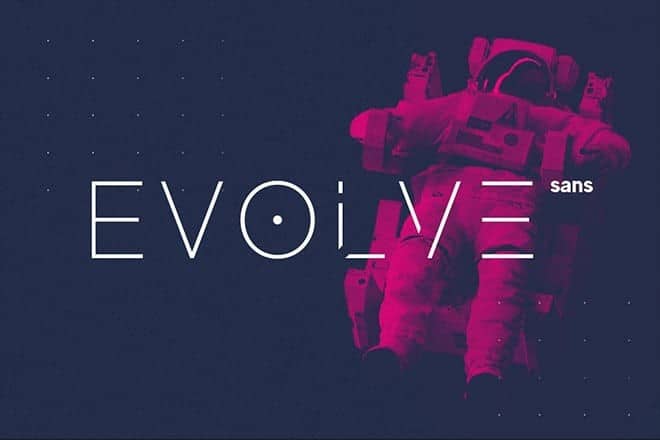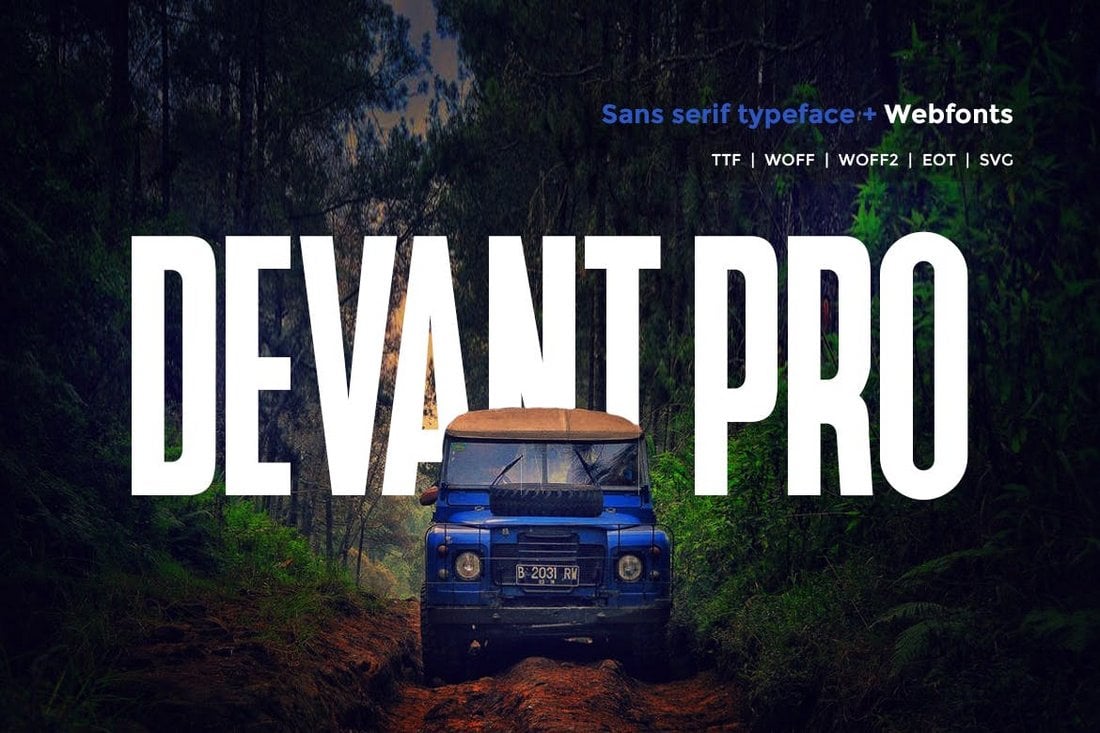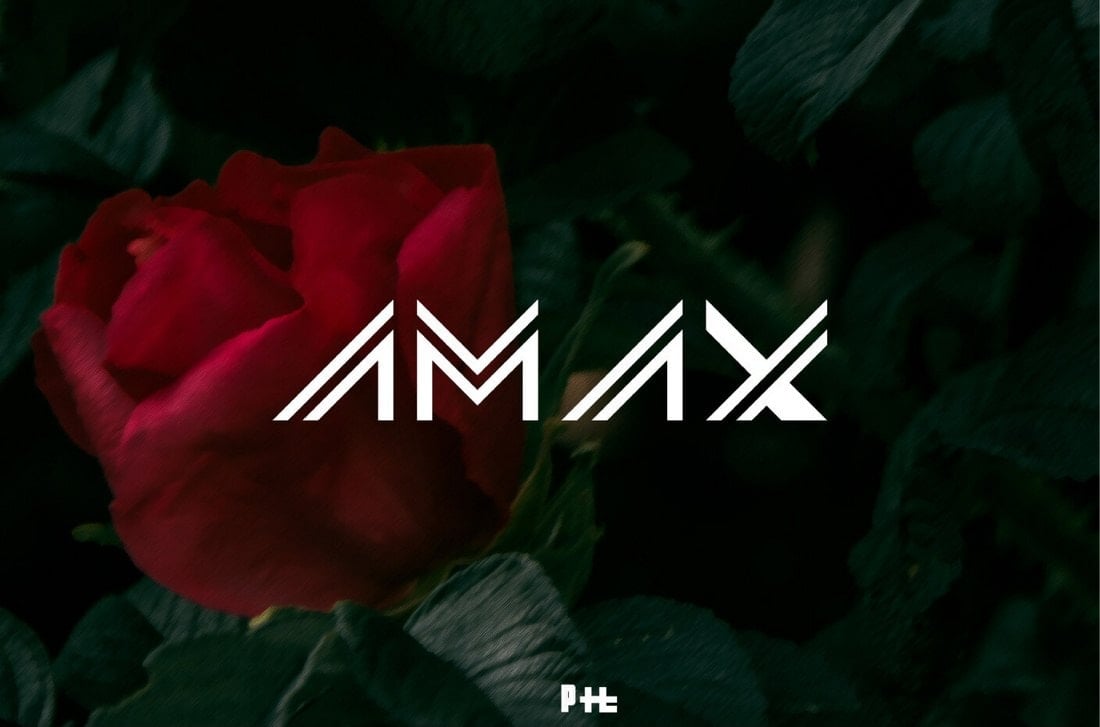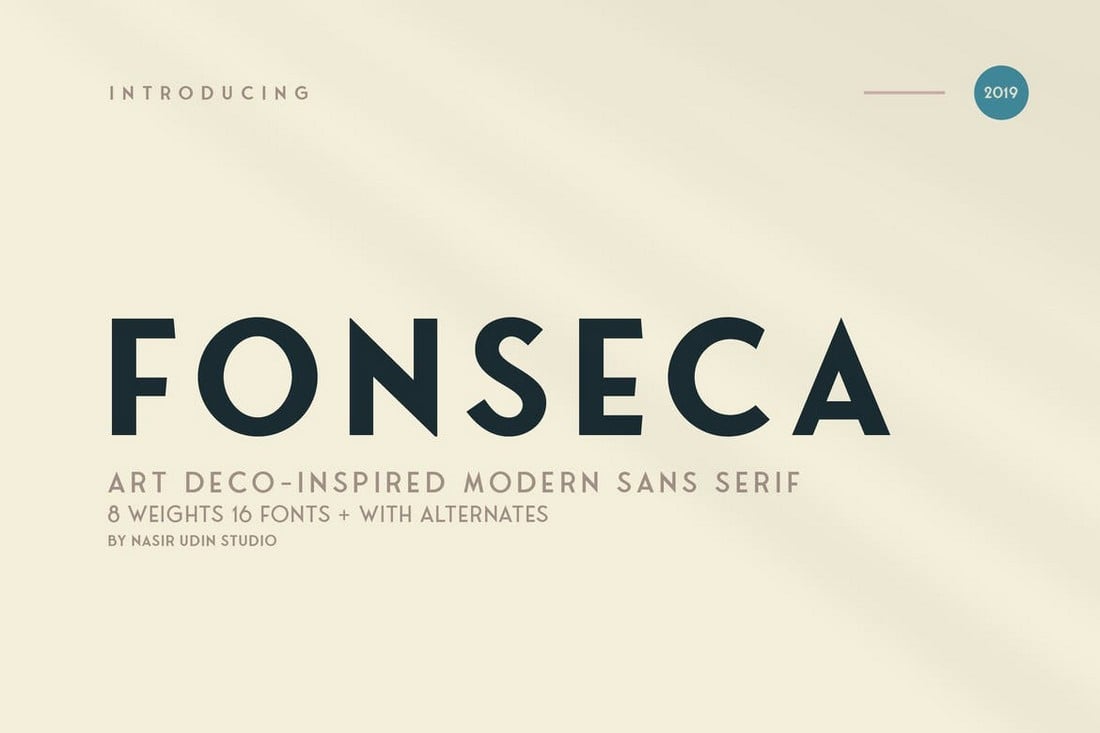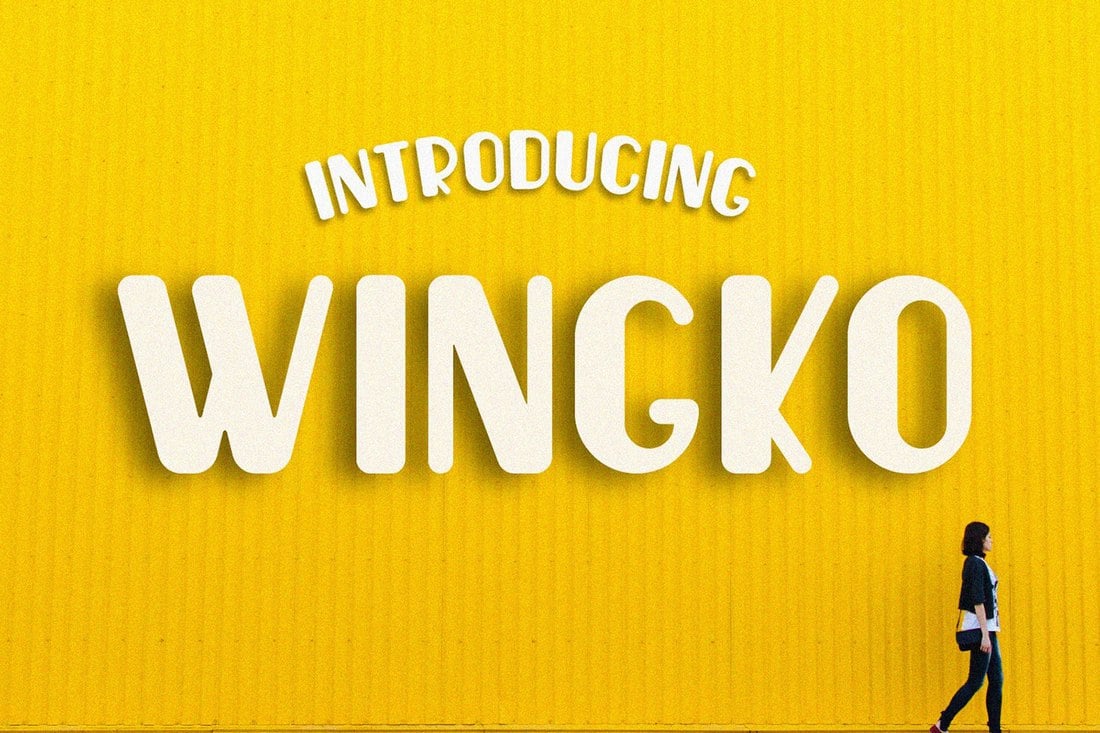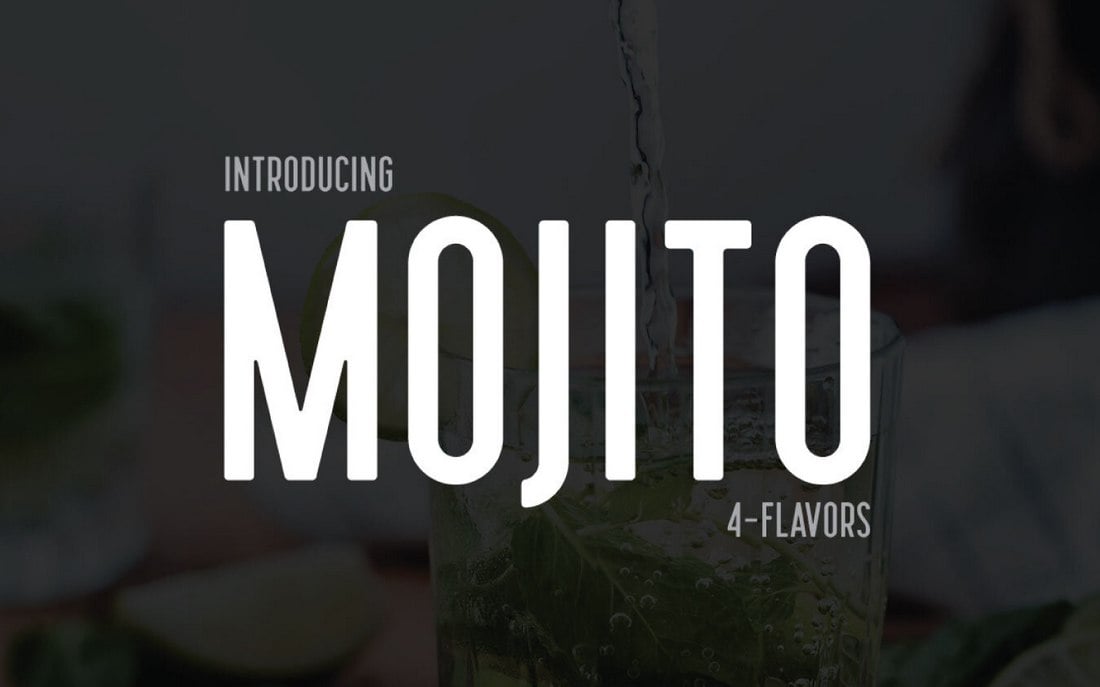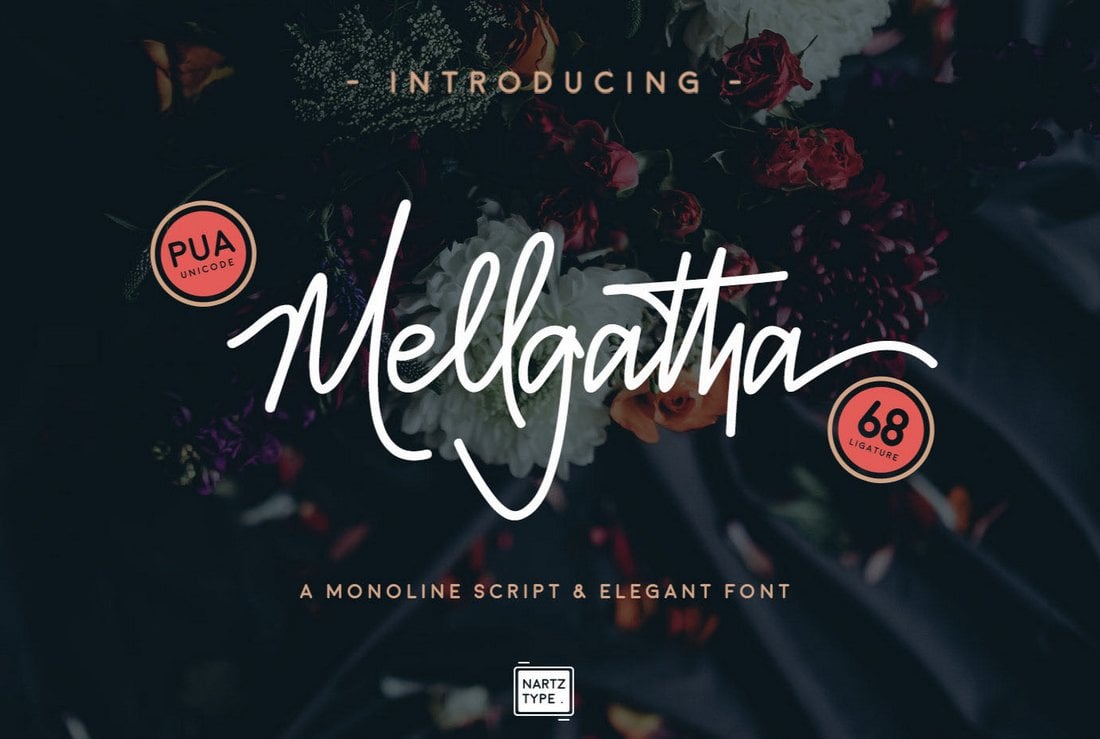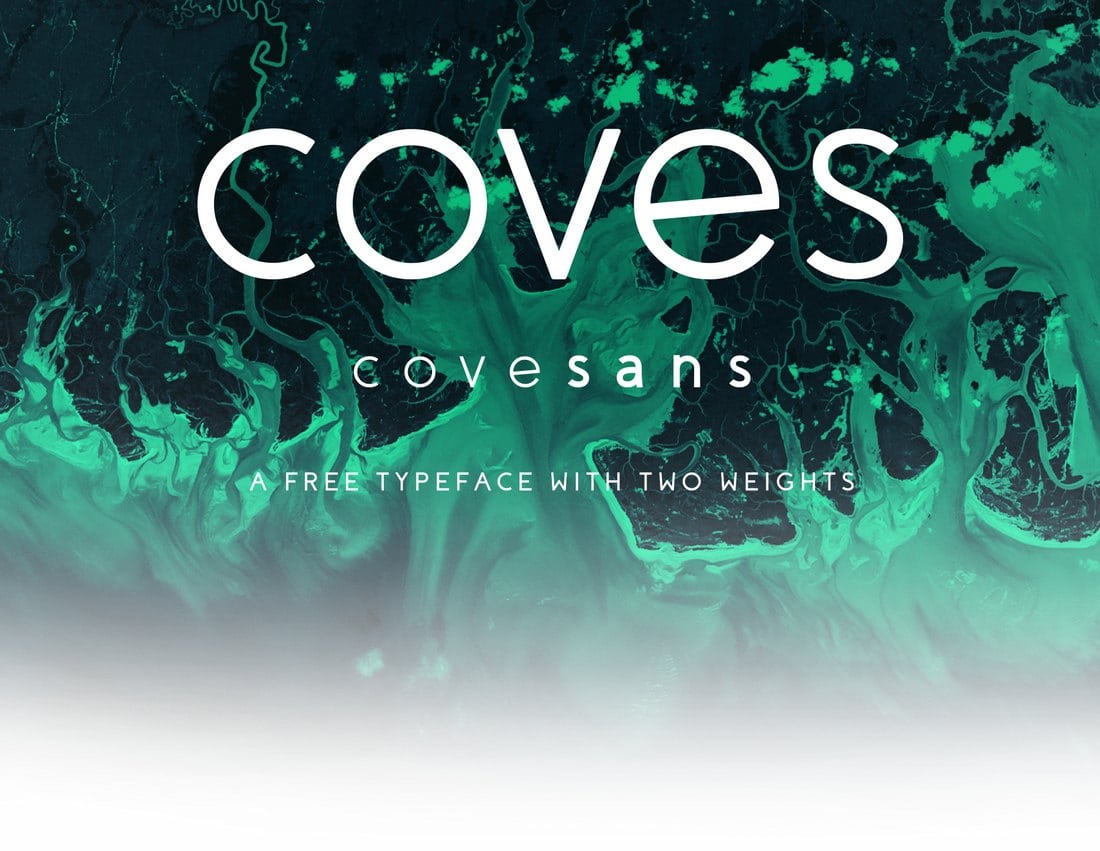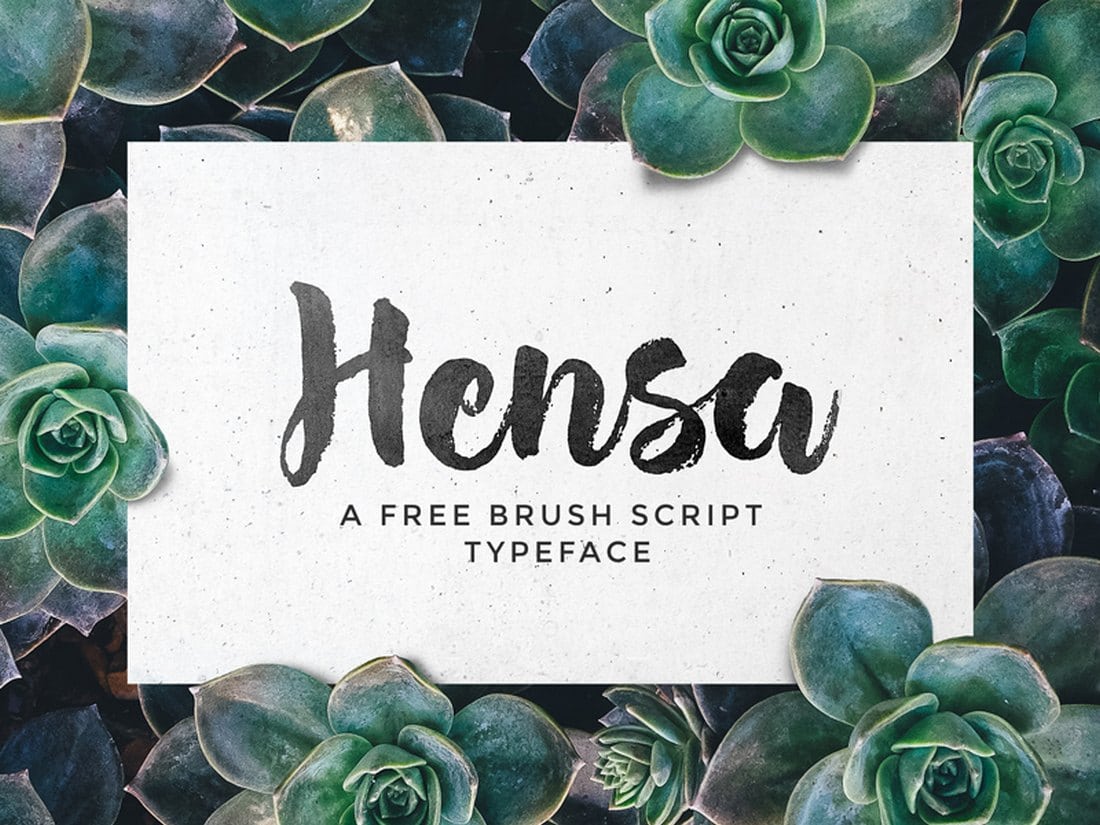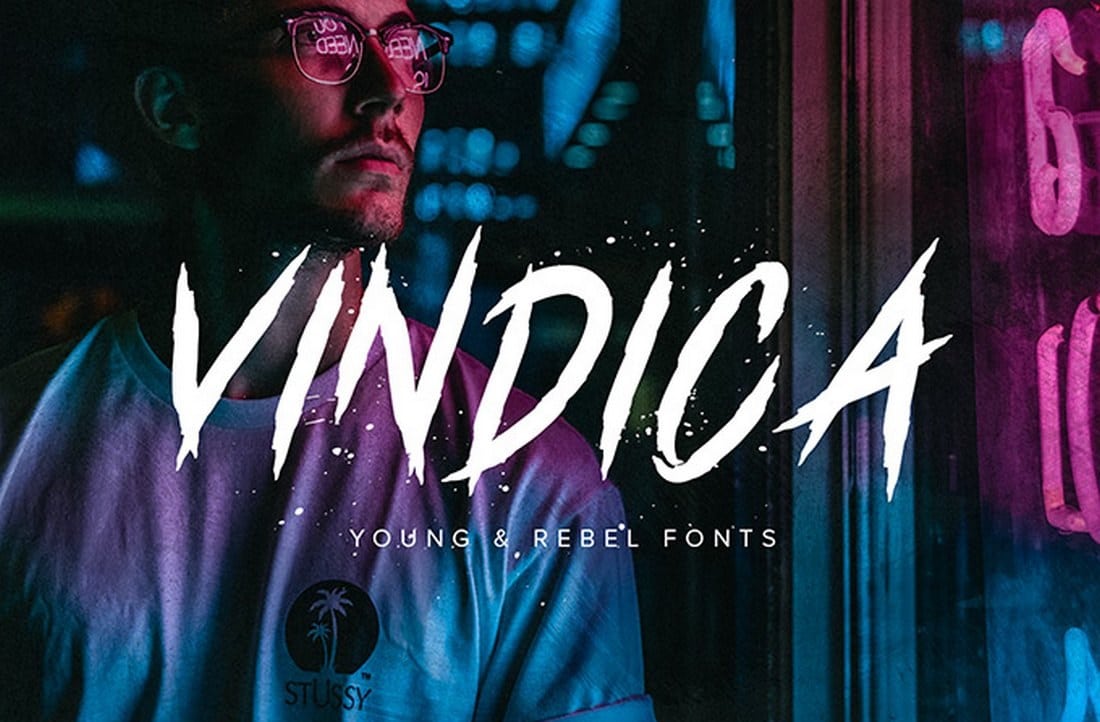
We’re amazed at the number, and quality, of free fonts available today. Designers have an incredible choice of free fonts to choose from. So whether you’re looking for a serif, script, or sans-serif font, today’s collection of the best free fonts for designers has you covered!
Utilizing a great-looking font is a key part of making any type of design look more professional. Of course, you don’t always have to use premium fonts to achieve that same level of professionalism. If you can’t afford to spend money on premium fonts to make your designs look great, you can always turn to one of the thousands of free fonts.
This collection includes the best free script fonts, serif fonts, sans-serif fonts, decorative fonts, and much more to match any kind of design project you’re working on. Go ahead, scroll down and start downloading. Most font are free, with a few premium options mixed in if you’re looking for something that really stands out.
Working on a poster or a flyer design? Then this font is perfect for crafting more attractive titles and headings. It’s a stylish marker-style font that comes with a full set of characters and lots of swashes. The font is free to use with your personal projects.
Delich is a calligraphy style handwritten font that features a smooth and creative character design. The font can be used as an all-rounder for designing everything from greeting cards to logos, posters, business cards, badges, and much more.
Camar is a creative free font you can use to design unique titles and headings in various designs. It features a vintage-themed design and has unique character designs that will make your designs stand out from the crowd.
Config is a family of condensed fonts that feature highly professional sans-serif designs. It includes 20 different fonts you can use with many different types of designs, both as a title and paragraph font.
Another stylish script font with vintage-themed designs. This font is ideal for designing website headers and greeting cards. You can use the font for free with your personal projects.
When picking fonts for any project, it’s best to get a font family as they come in multiple variations of the same font. Bw Modelica is a font family that comes with a total of 64 typefaces. Perfect choice for book design and many other types of projects. It includes fonts in 4 widths featuring 8 weights of each font as well as italics.
This is a decorative font that features characters with unique stylistic designs. The font also comes with a vintage layout that will make your titles and headings look like signage from the 1920s. It’s free to use with personal projects.
Flix is a bold display font with a stylish rounded character design that gives it a unique identity of its own. It comes in two styles featuring regular and outline typefaces.
Redwing is a collection of free fonts featuring a thick and blocky character design. The free version of the font comes with 2 different weights. Both of which are free to use with personal and commercial projects.
Monolith is an ultra-minimalist font featuring a thin letter design. This font is most suitable for modern businesses and creative agencies for crafting logos, business cards, and website designs. The font includes multilingual support and it’s available in multiple weights.
This is a unique pairing of fonts you can use with your various design projects. It includes a serif fonts and a script font. Both would go perfectly with a greeting card design. The free version might only include a single font.
RNS Sanz is a clean and minimalist sans-serif font family you can use with business and corporate books and magazines. This font includes 7 different font weights ranging from light to bold and black. Making it a suitable choice for designing both titles and body text.
Lil Stuart is a collection of modern and creative fonts. It includes typefaces in both blocky title fonts and script font styles. The freebie gives you 3 fonts to test out in your personal projects.
Devant Pro is a modern condensed narrow font that features a big and bold design, making it perfect for website headers, posters, banners, flyers, and much more.
This beautiful and fun free font is perfect for all kinds of casual designs. It will fit in perfectly with lifestyle and social media graphic designs as well as children’s designs. It’s free to use with commercial projects.
Daytonia is a beautiful hand lettering scrip font featuring a modern-vintage design. The font comes with multilingual support, alternates, swashes, and more. It’s perfect for designing greeting cards, invitations, and posters.